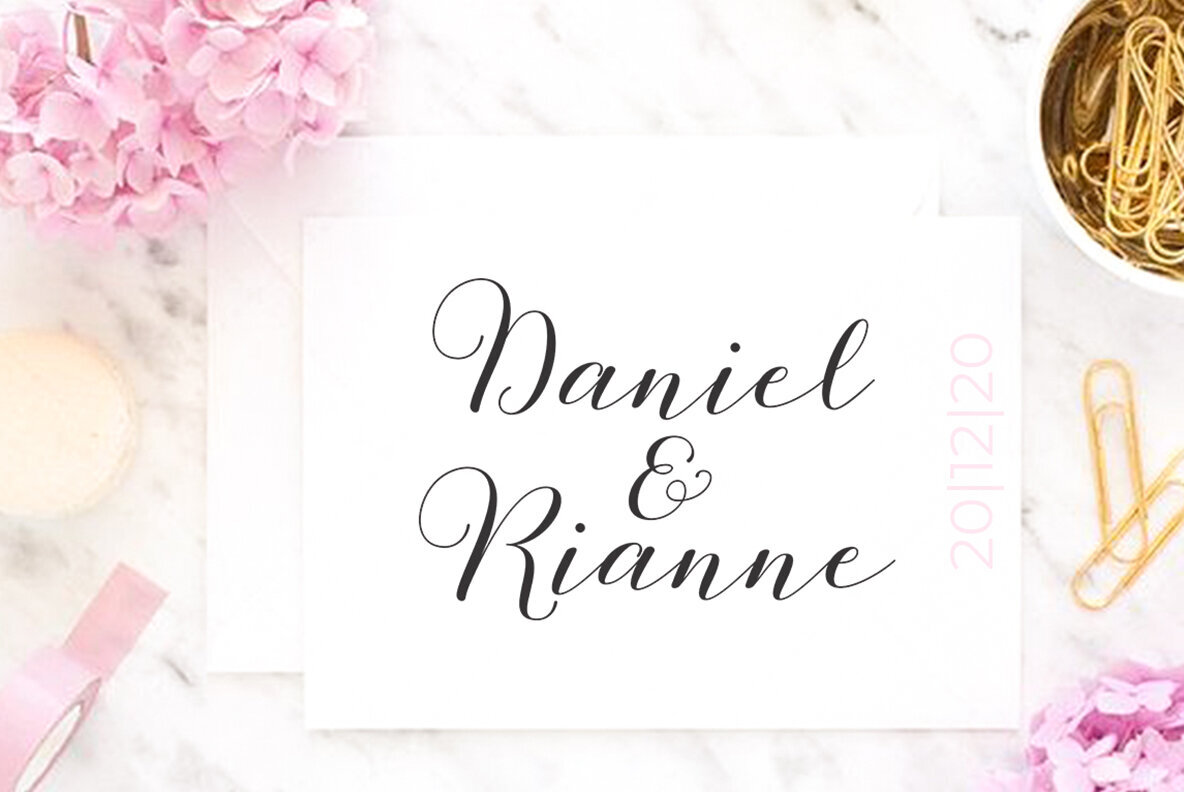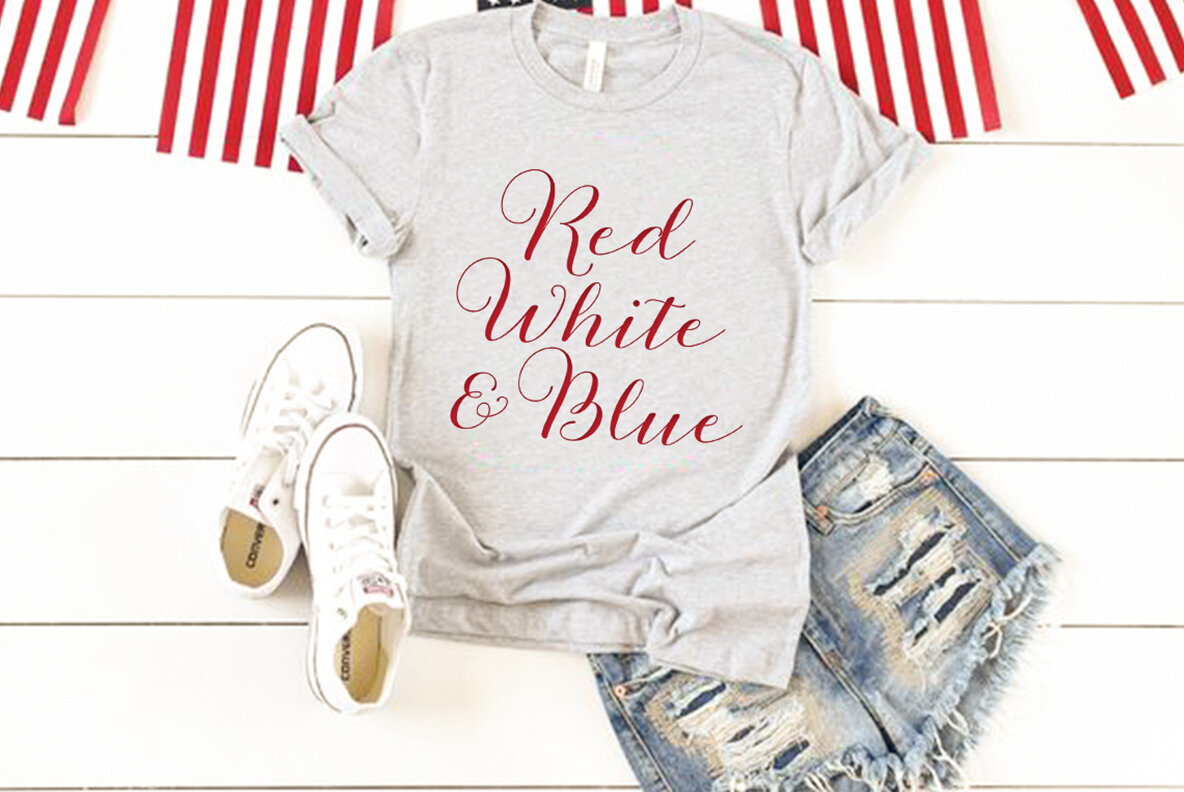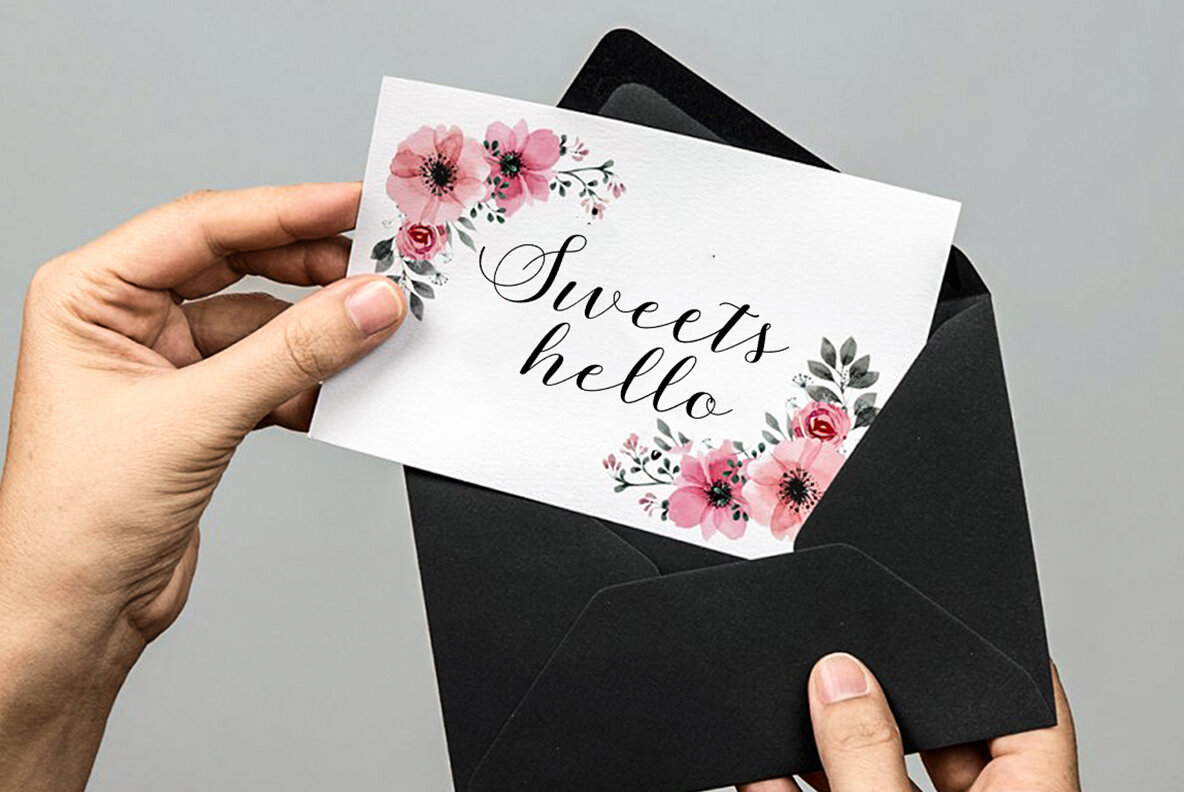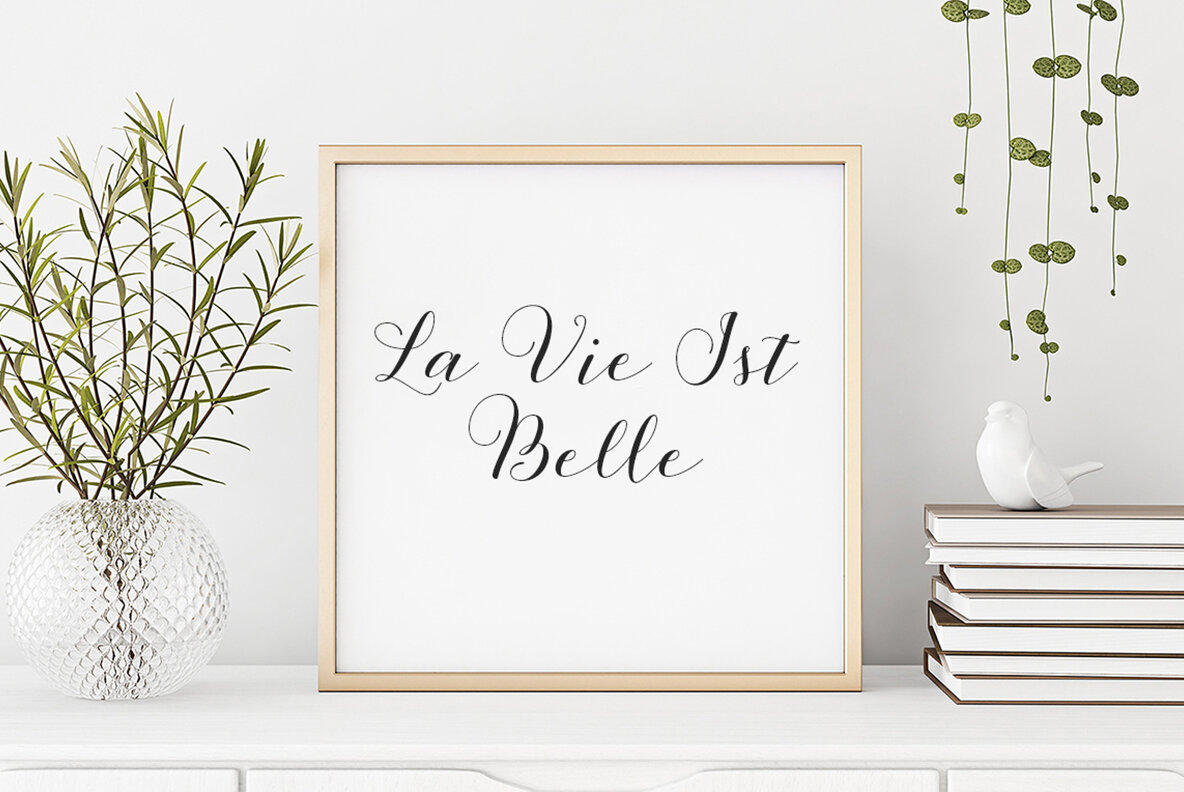
Nagitsya Font
Nagitsya Regular
Nagitsya is a beautiful and sweet calligraphy font. It is fresh, modern and elegant. This font will look amazing in many projects, from wedding invitations and greeting cards to social media quotes, branding, and more! Nagitsya includes OpenType style alternatives, ligatures, and International support for most Western Languages. To enable the OpenType Stylistic alternative, you need a supporting program such as Adobe Illustrator CS, Adobe Indesign & CorelDraw X6-X7, Microsoft Word 2010 or a later version. Nagitsya is encoded with PUA Unicode, which allows full access to all additional characters without having to design special software. Mac users can use Font Book , and Windows users can use Character Map to view and copy any additional characters to paste into your favorite text editor/application.